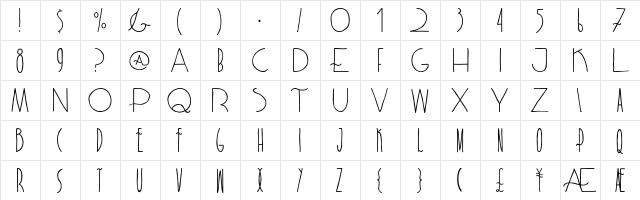
Rispadhd Light
| Foundry | Konrad Bednarski |
| Designer | Konrad Bednarski |
Design Context for Rispadhd Typeface
Rispadhd offers clean, dependable letterforms without strong stylistic allegiance, making it a practical choice for designers who need flexibility. Its slender proportions lend an understated elegance to any composition.